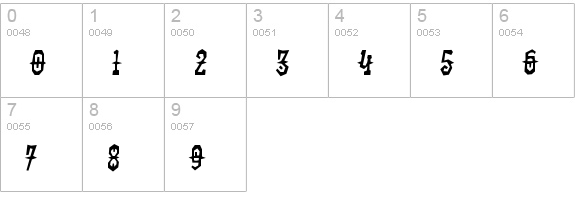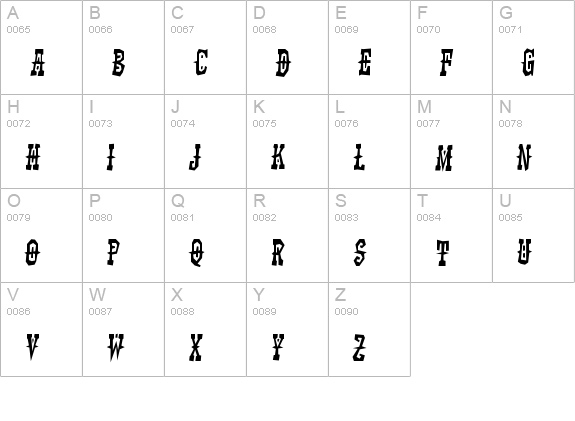
Kadonk-Regular Font Details
Kadonk-Regular is the standard, neutral variant in the Kadonk typeface family \xE2\x80\x94 well suited to general body text, paragraphs, and standard typographic work.
Kadonk-Regular font is a versatile and stylish typeface that combines modern design elements with classic appeal. Its clean lines and balanced proportions make it perfect for a wide range of design projects, from branding to editorial design. The font features a unique blend of sharp angles and smooth curves, creating a distinctive look that is both contemporary and timeless. What sets Kadonk-Regular font apart is not just its design, but also its accessibility. This font is available for free download at FontsMarket.com, making it a valuable resource for designers and creatives looking to add a touch of sophistication to their work without breaking the bank. Whether you're working on a logo, a website, or a print project, Kadonk-Regular font is sure to make a bold statement and elevate your design to the next level.